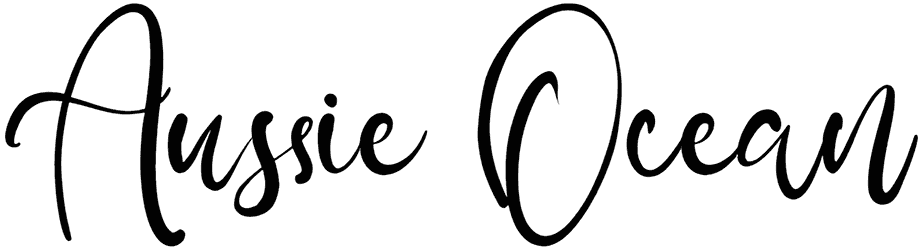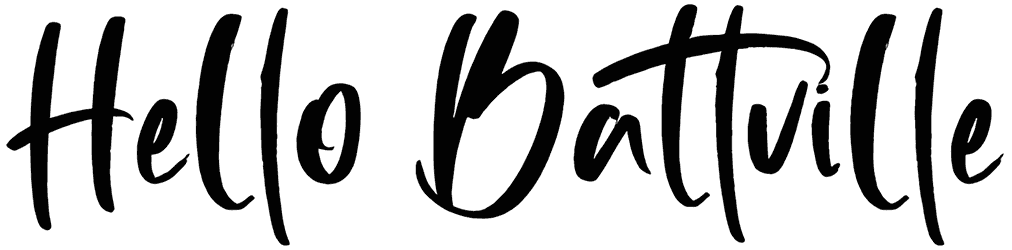
Welcome to White light, black line, a majestic handwritten font that adds an artistic touch to your artwork, including animation posters, headlines, product packaging, greeting cards, and blog posts. Due to its wavy style and crooked characters, this 3D font can boost the visibility of your content by adding a sense of jauntiness, playfulness, drama, and grunge.